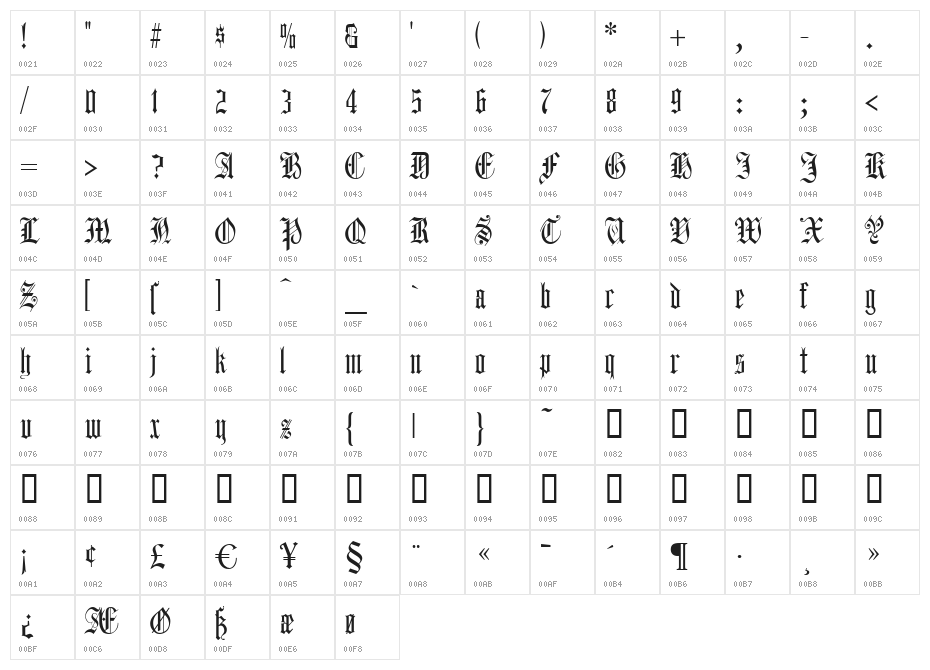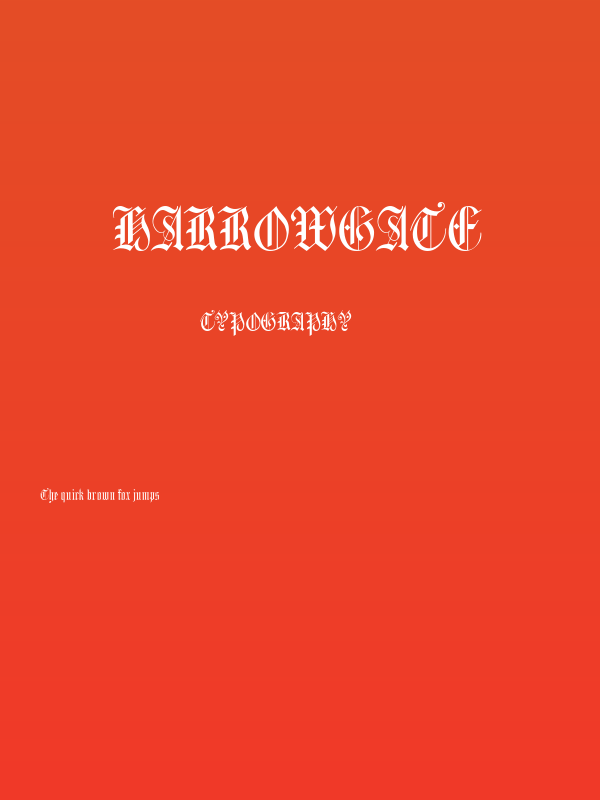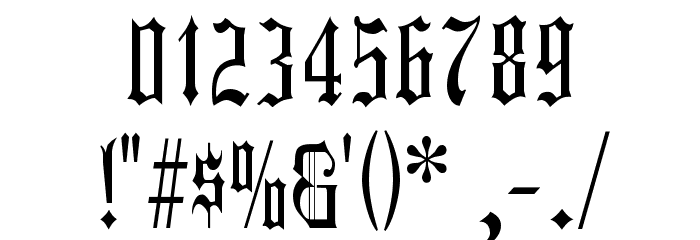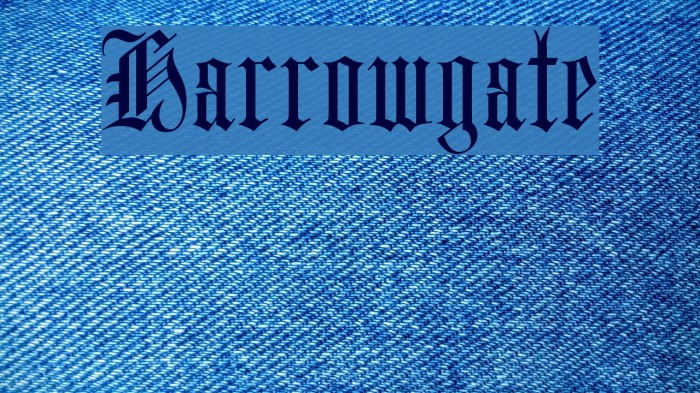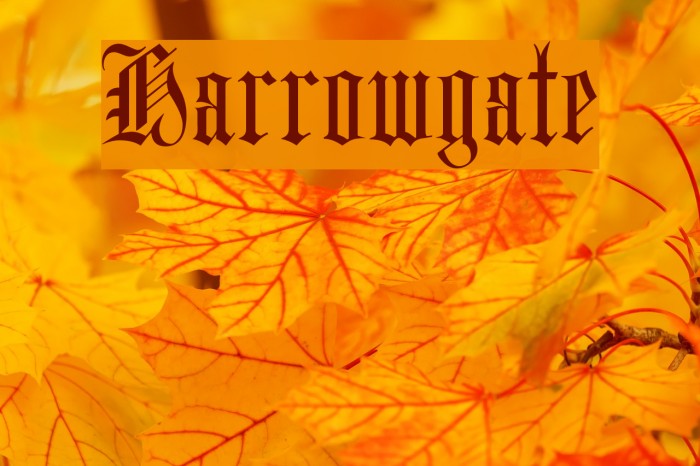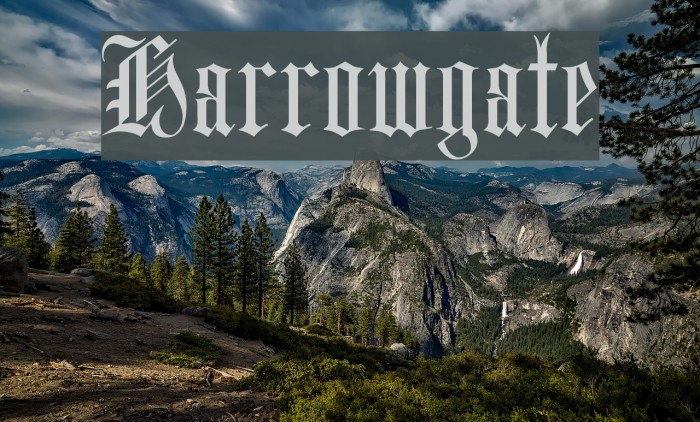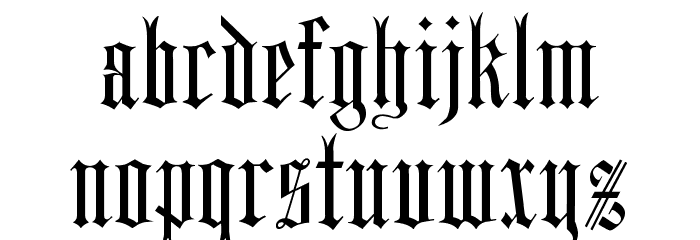
Harrowgate Font
✎ Gothic
| Categorie | Gothic |
| Caso d'uso | Headlines, Logos, Decorative text |
| Progetti proposti | Ideal for certificates, invitations, historical documents, and branding that requires a classic and formal touch. |